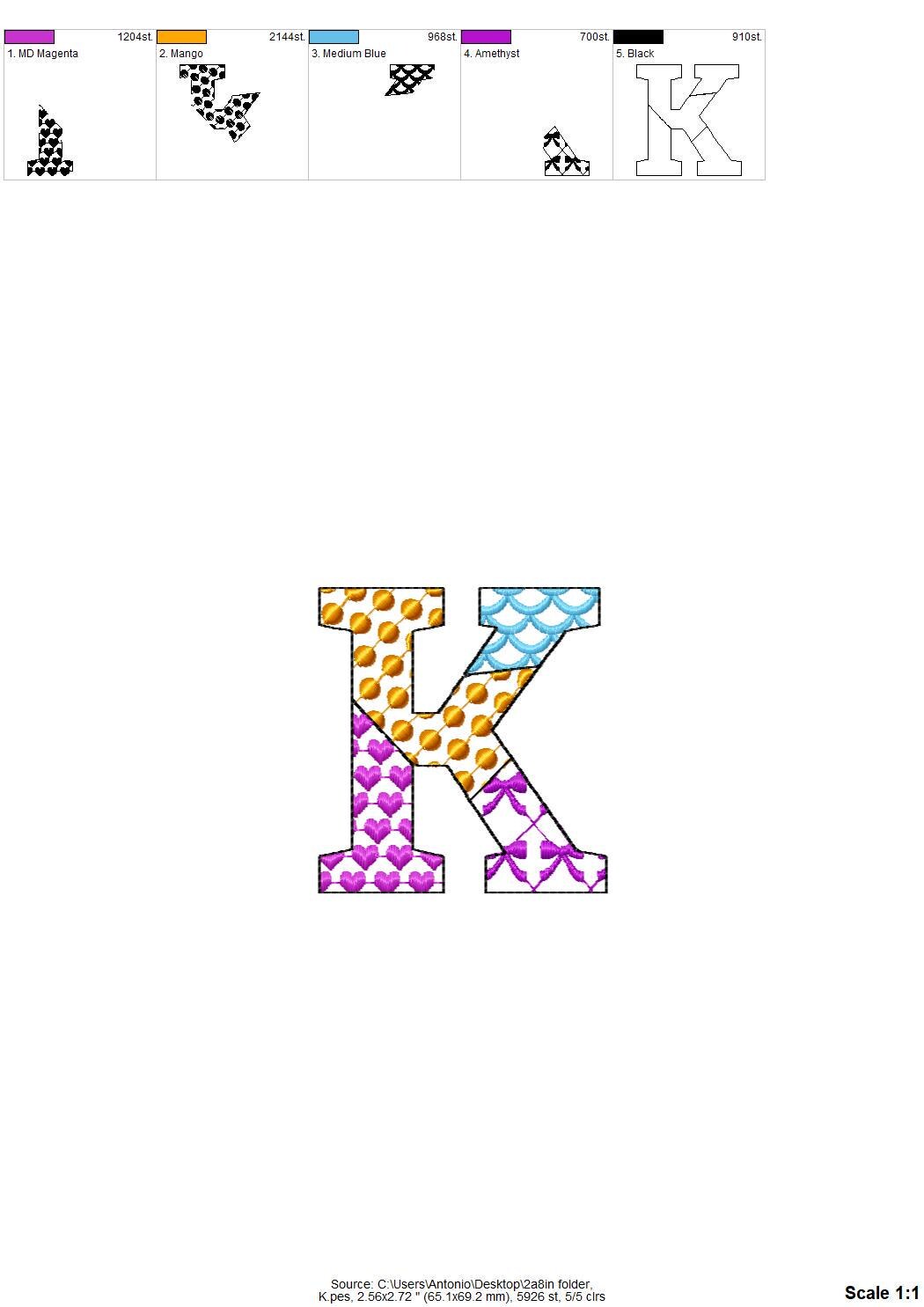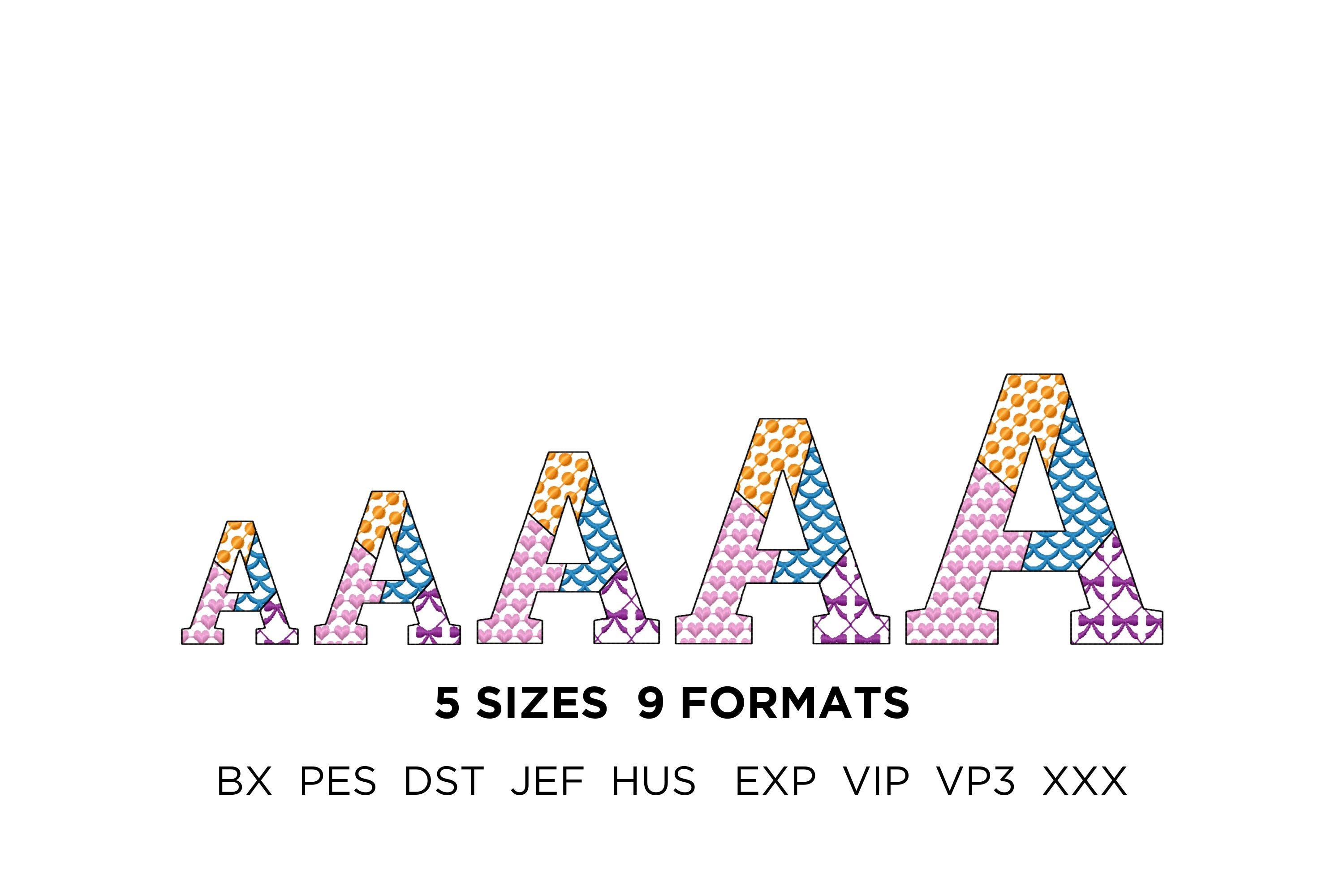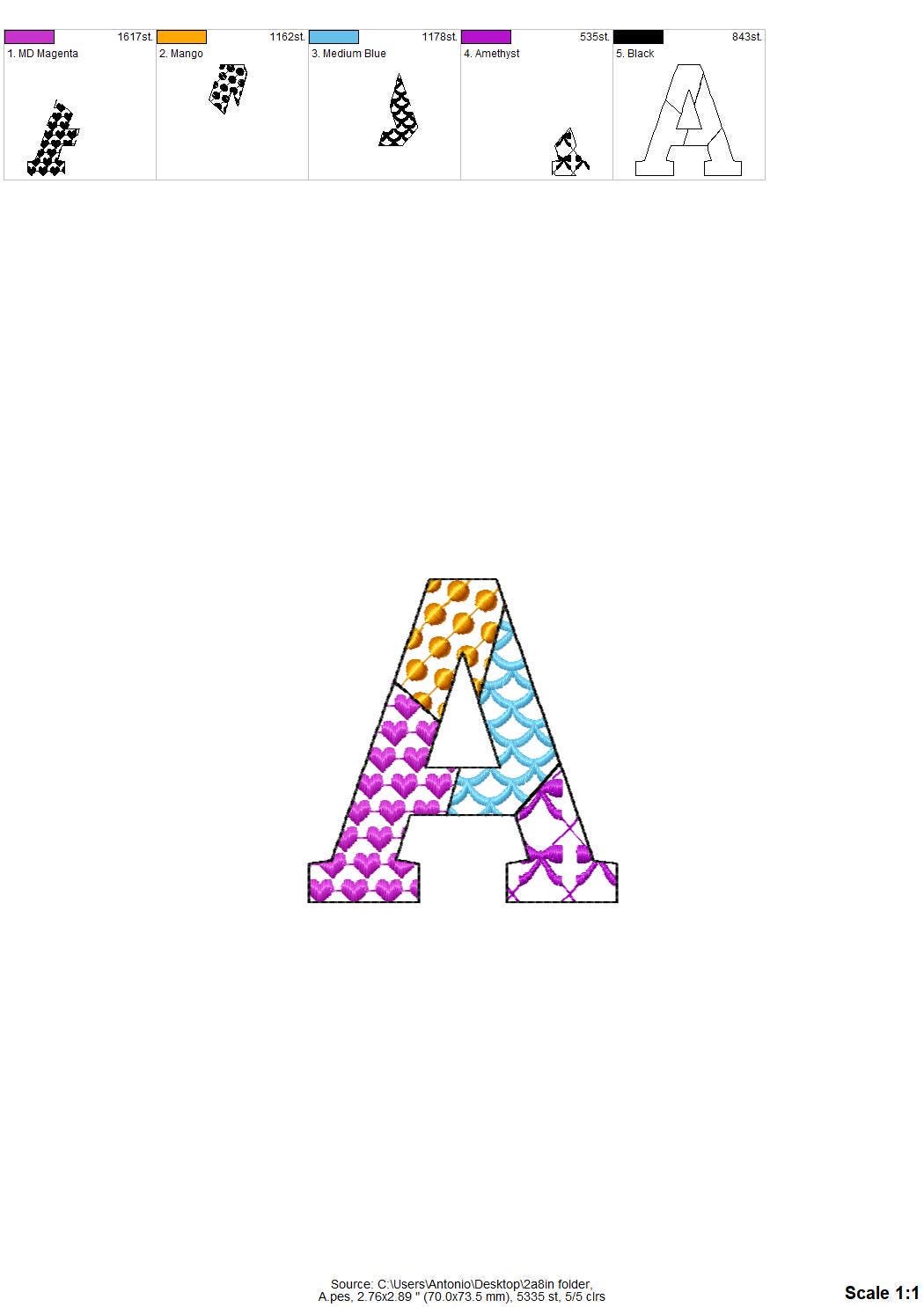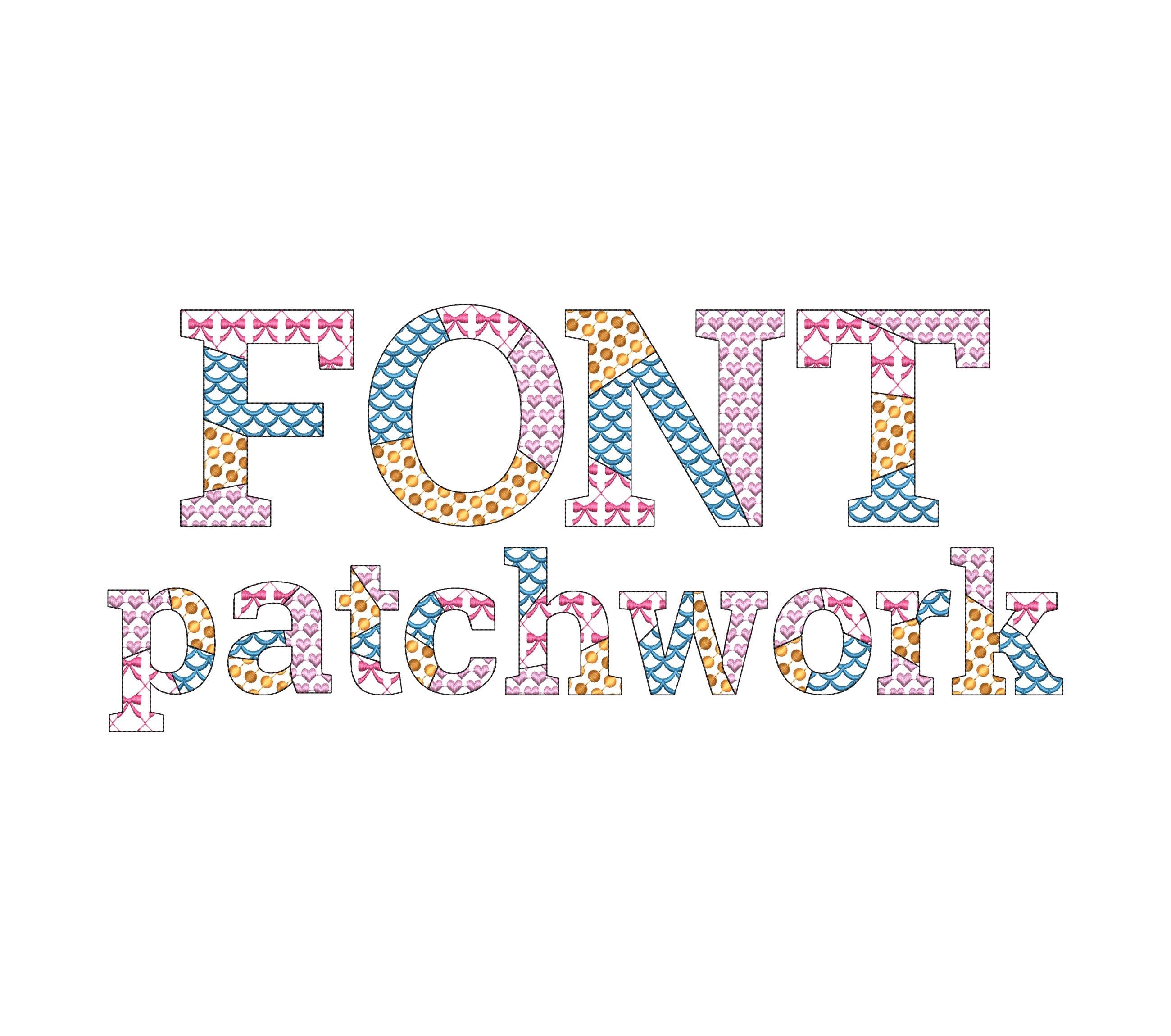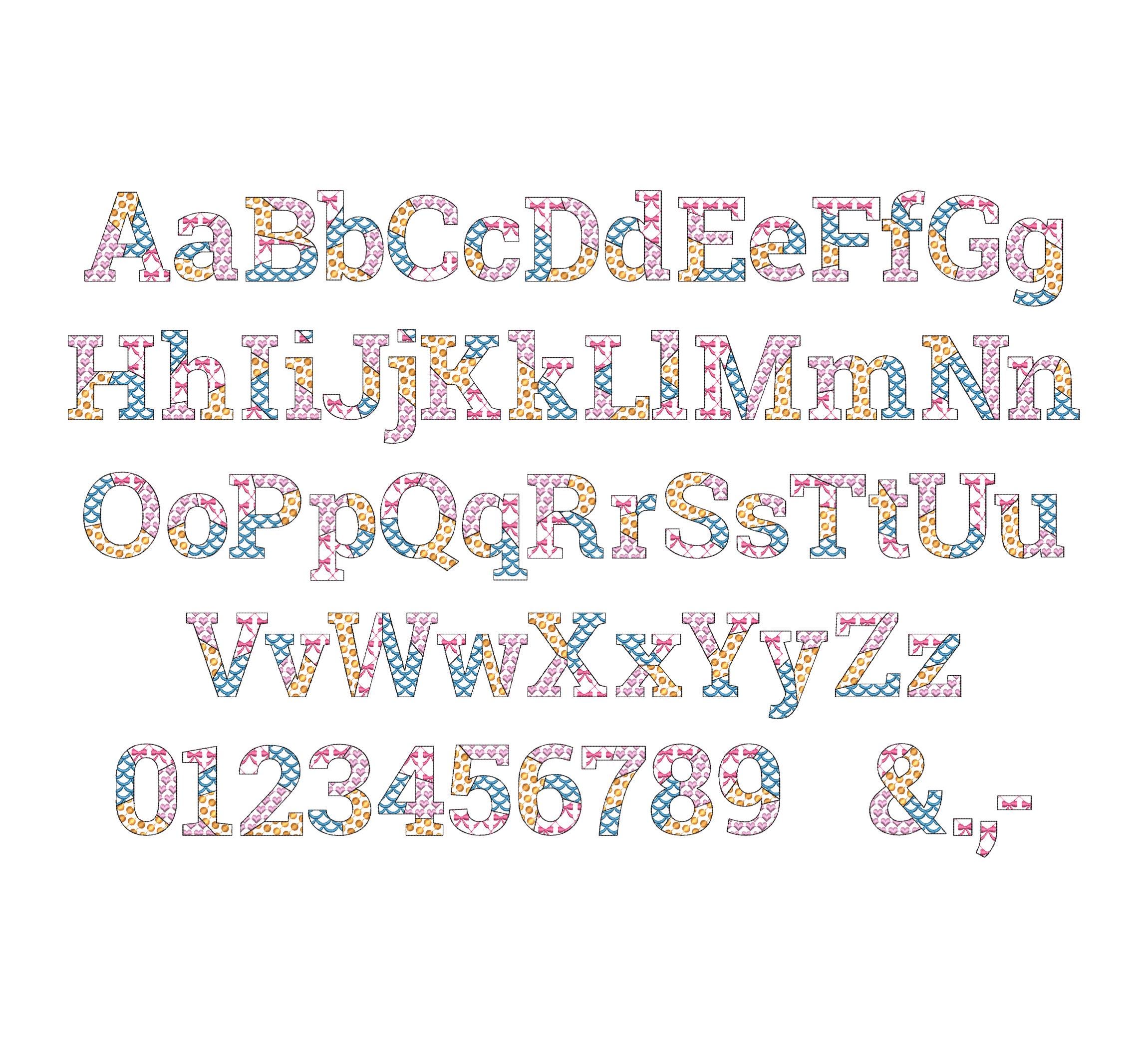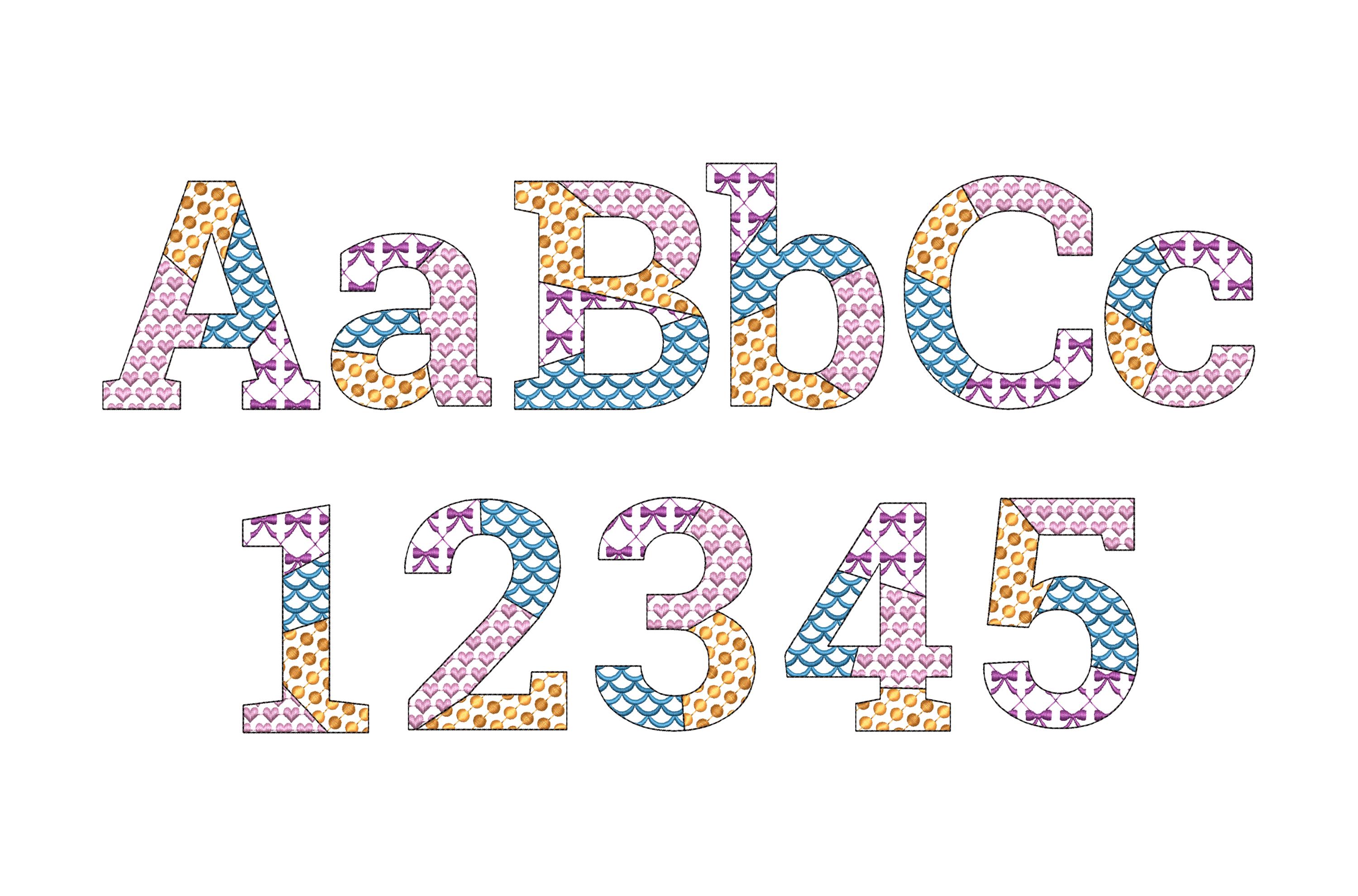
Patchwork Block FONT Summer patterned alphabet monogram letters machine embroidery designs sizes 1.8 up to 4 inch girly tiny bow heart dots
Whole alphabet Aa-Zz uppercase and lowercase letters, numbers 0-9, and punctuation.
Patterns are part of the embroidery. The font is transparent, and the background fabric looks through. Stunning effect!